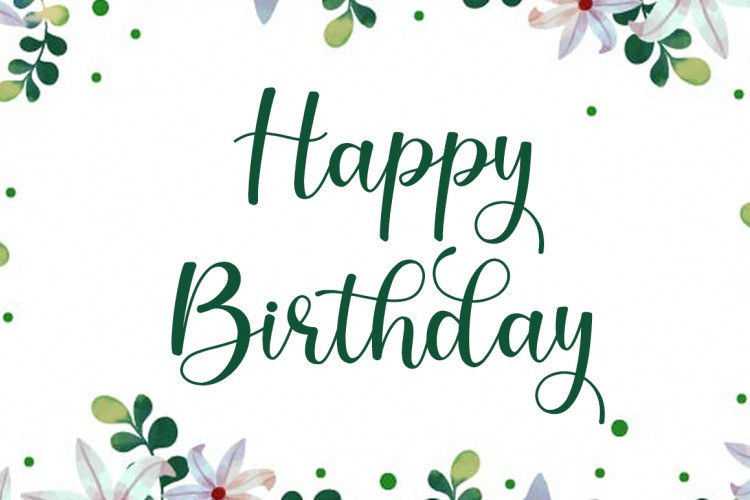
luisha Calligraphy Font
Luisha Modern Calligraphy Fonts are font designs that are made for various vector designs, printing such as digital wedding invitations, blogs, online shops, social media, while printing can be used in the field of product clothing, accessories, bags, pins, logos, business cards, watermarks and many others …